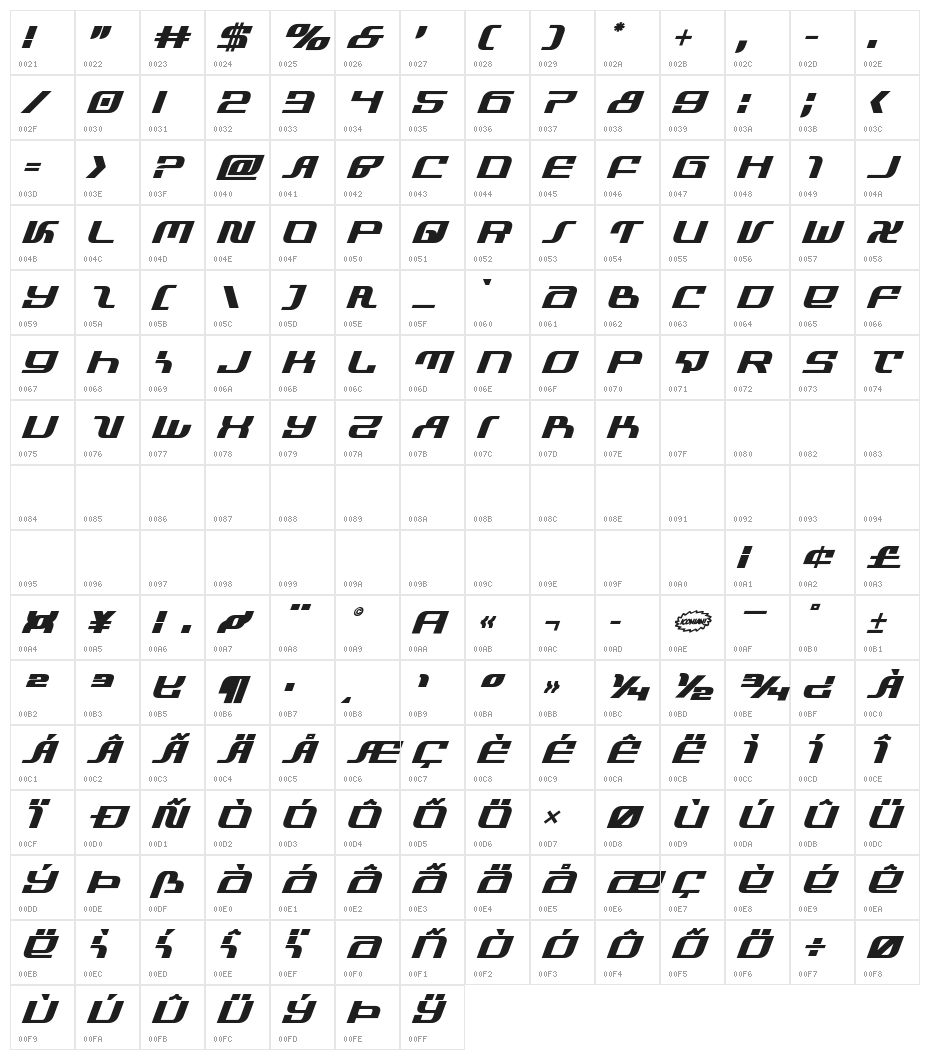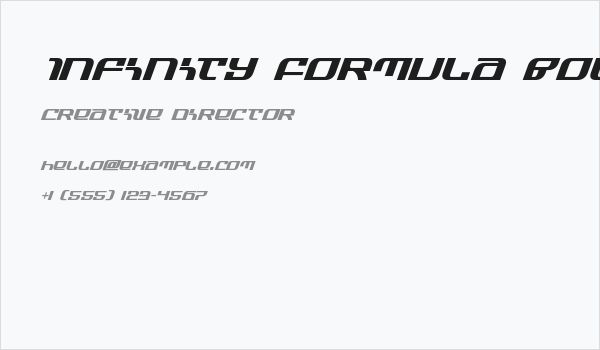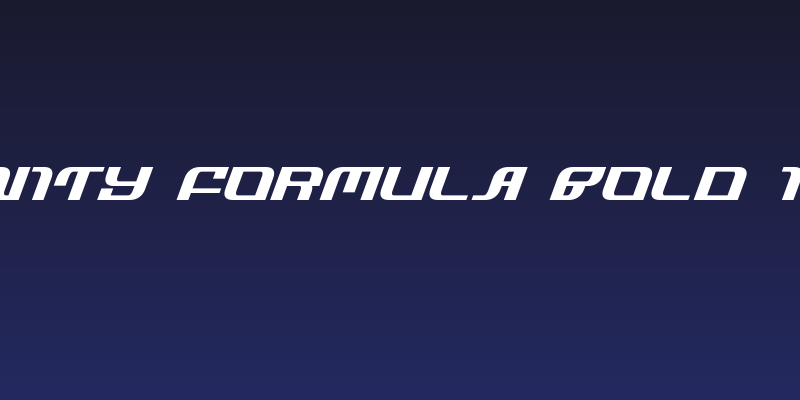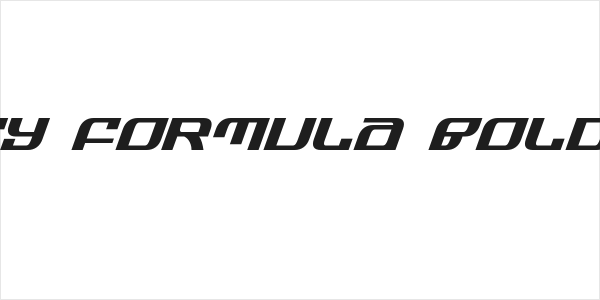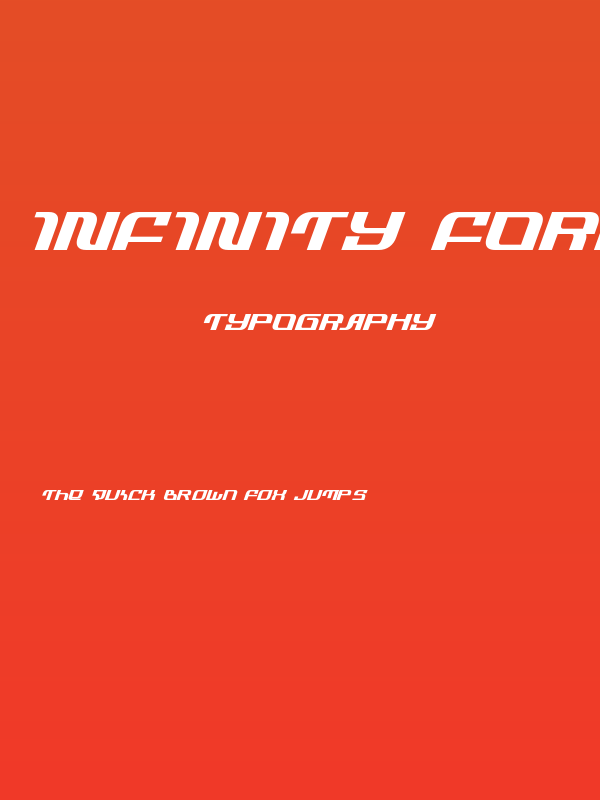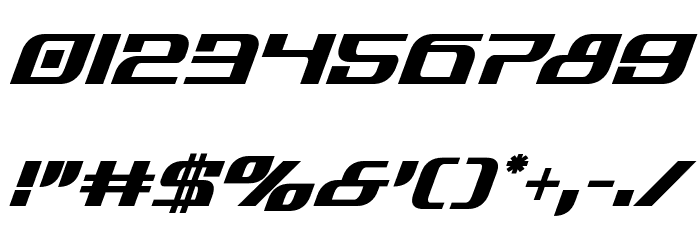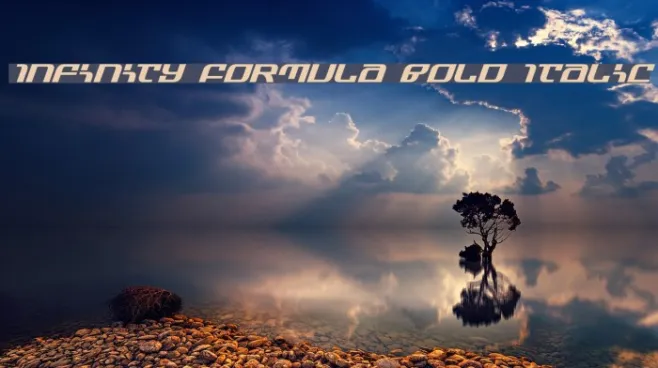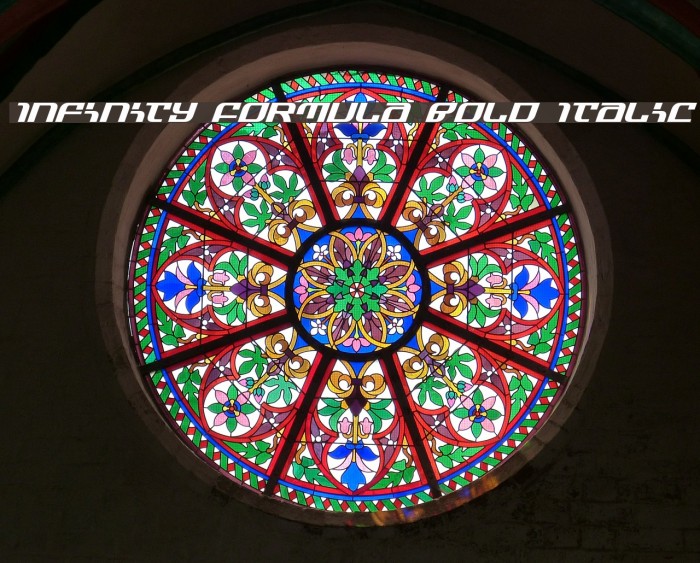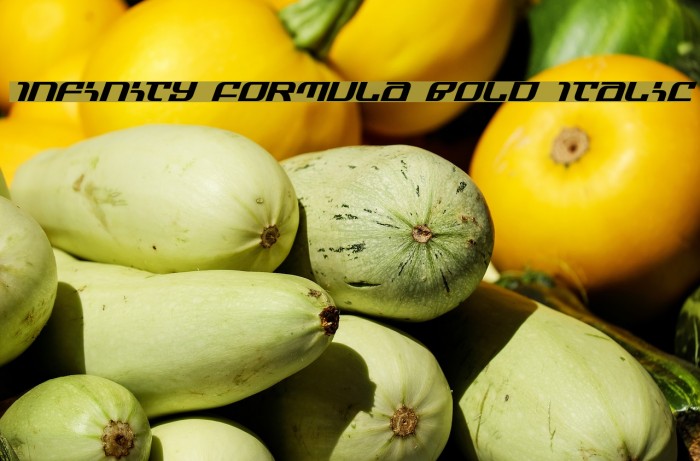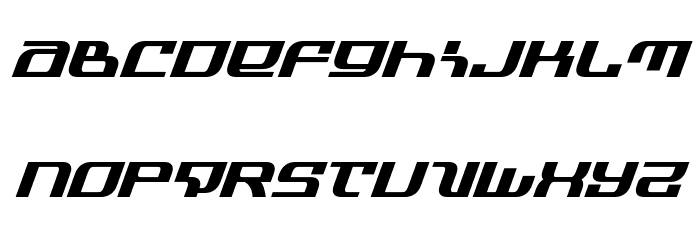
Infinity Formula Bold Italic Font
Infinity Formula Bold Italic Description
This font exhibits a dynamic and futuristic style, characterized by its bold and italicized form. The letters are sharply angled, giving a sense of movement and speed. The uppercase and lowercase characters maintain a consistent slant, enhancing the italic effect. The numerals and special characters follow the same design principles, ensuring uniformity across all glyphs. The font's design is sleek and modern, making it suitable for projects that require a contemporary and energetic aesthetic.
| Use Case | Logos, Headlines |
| Proposed Projects | Ideal for branding, sports team logos, automotive advertisements, and technology-related projects. |